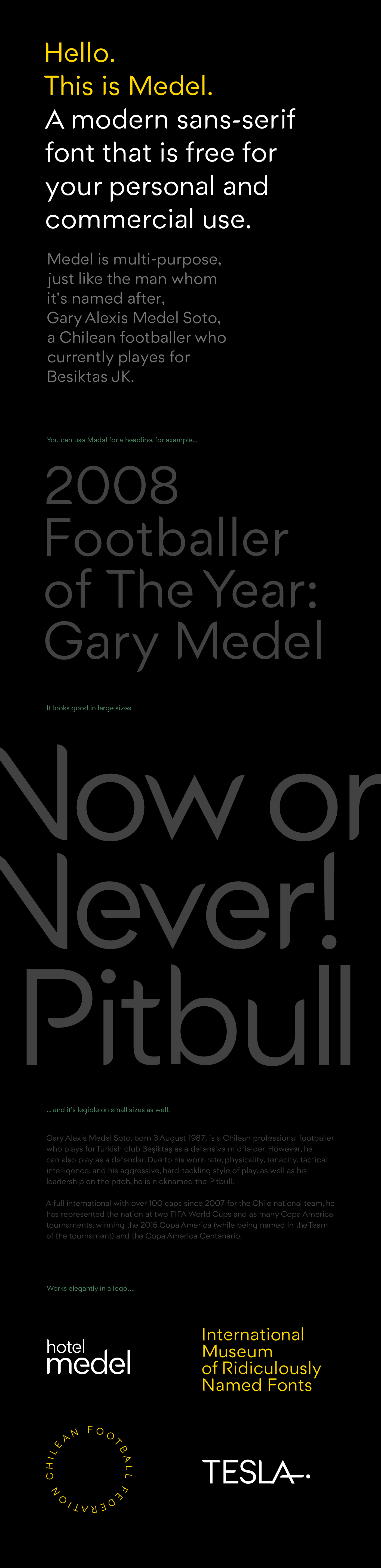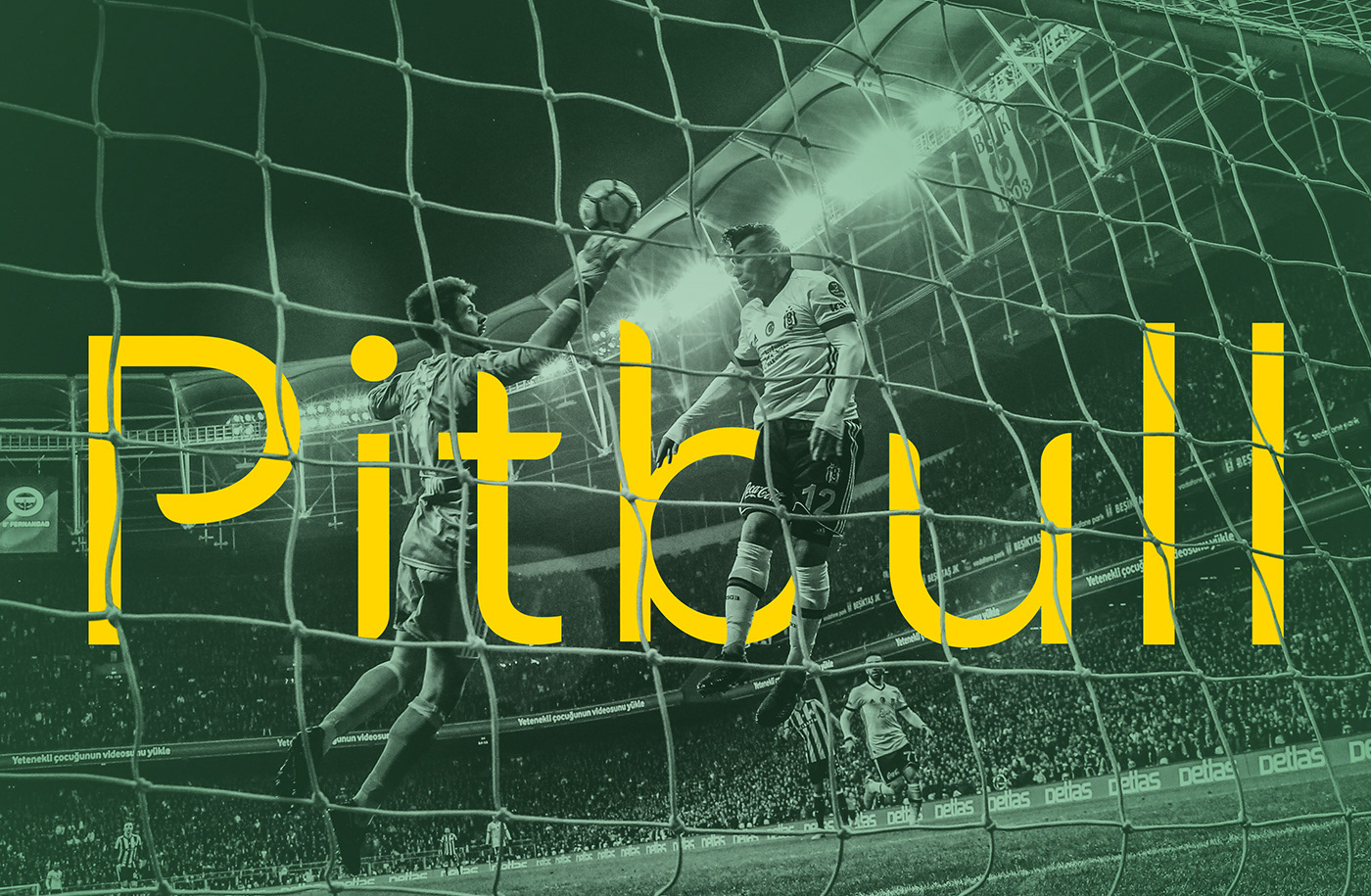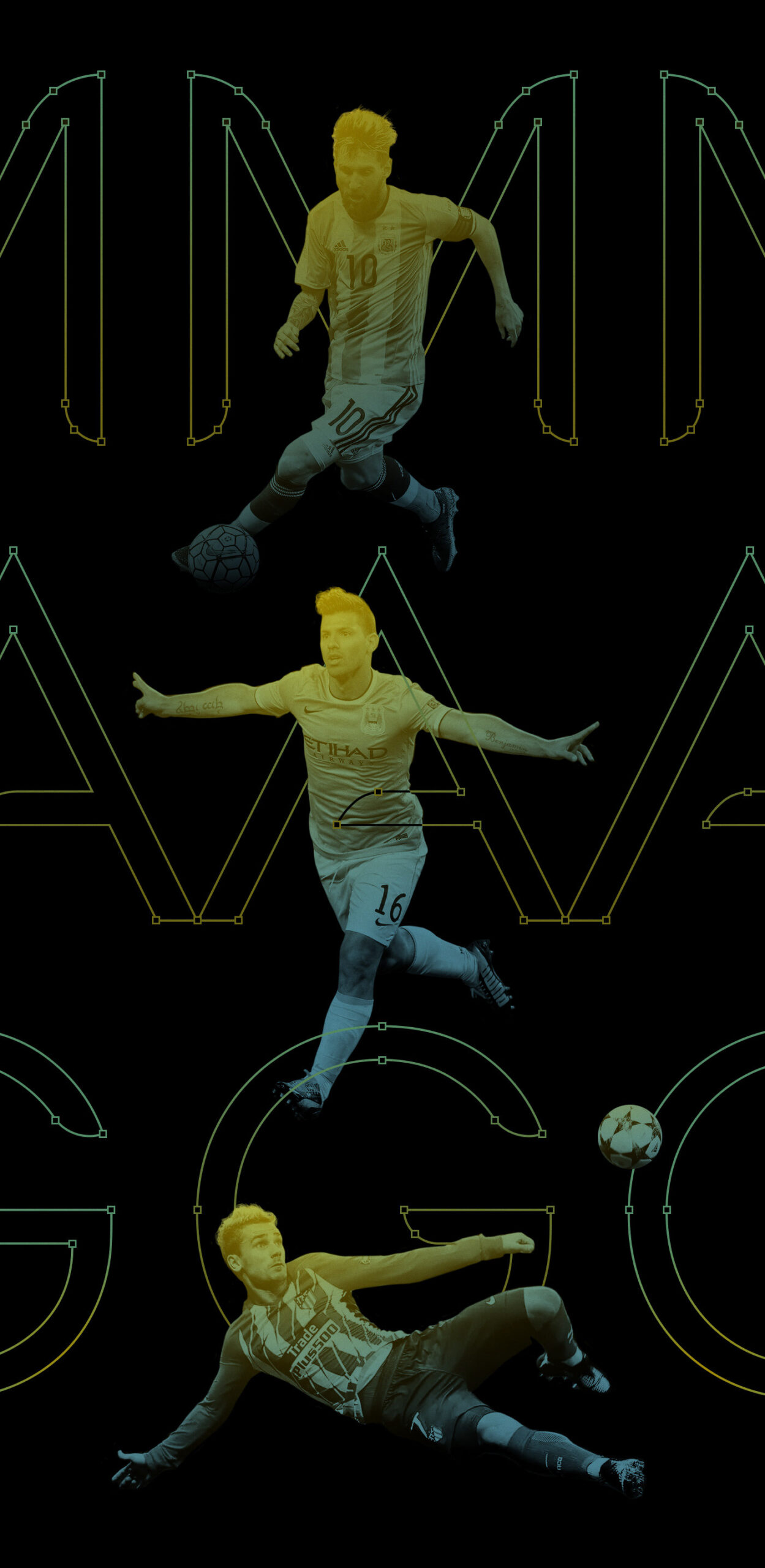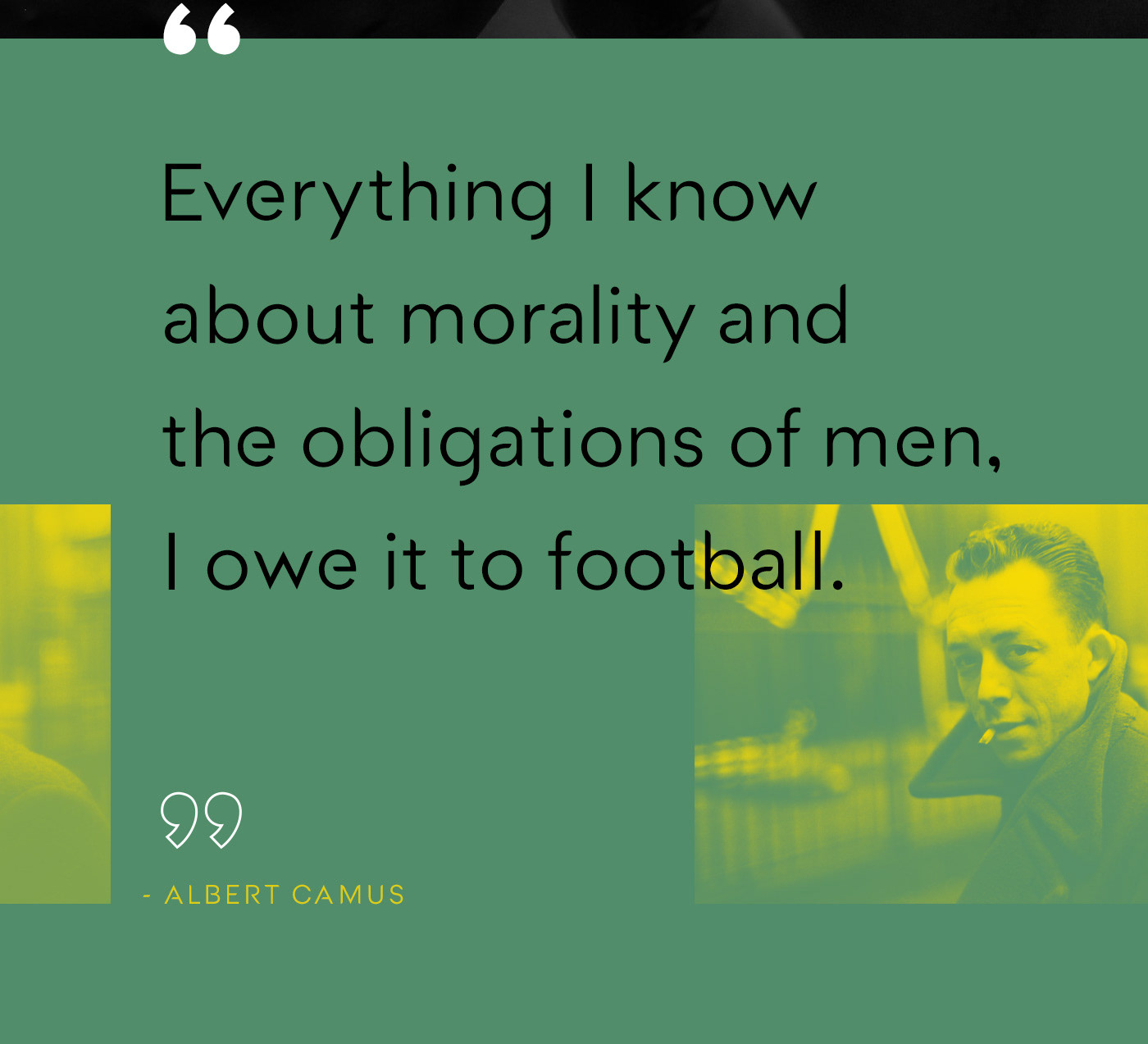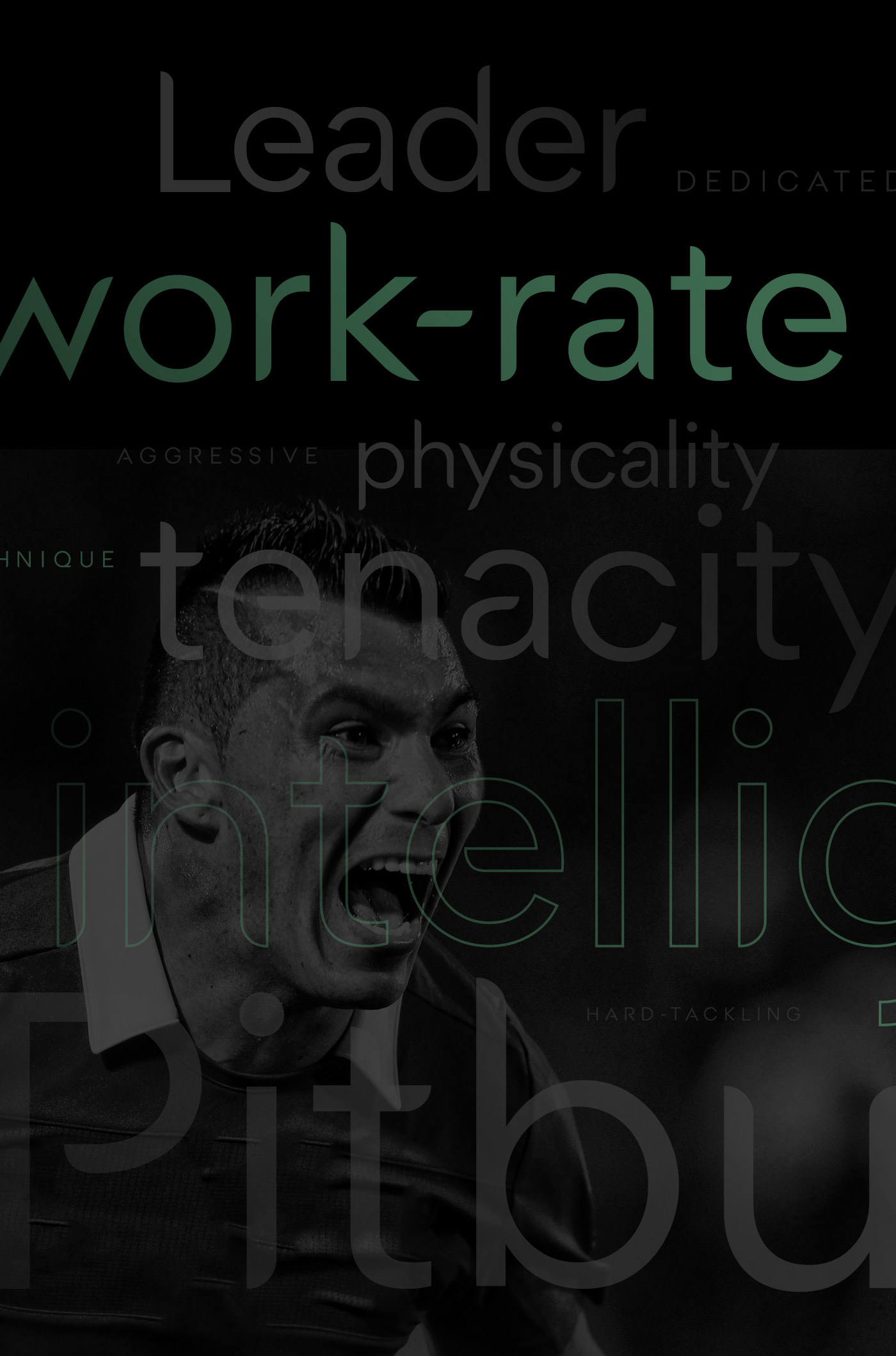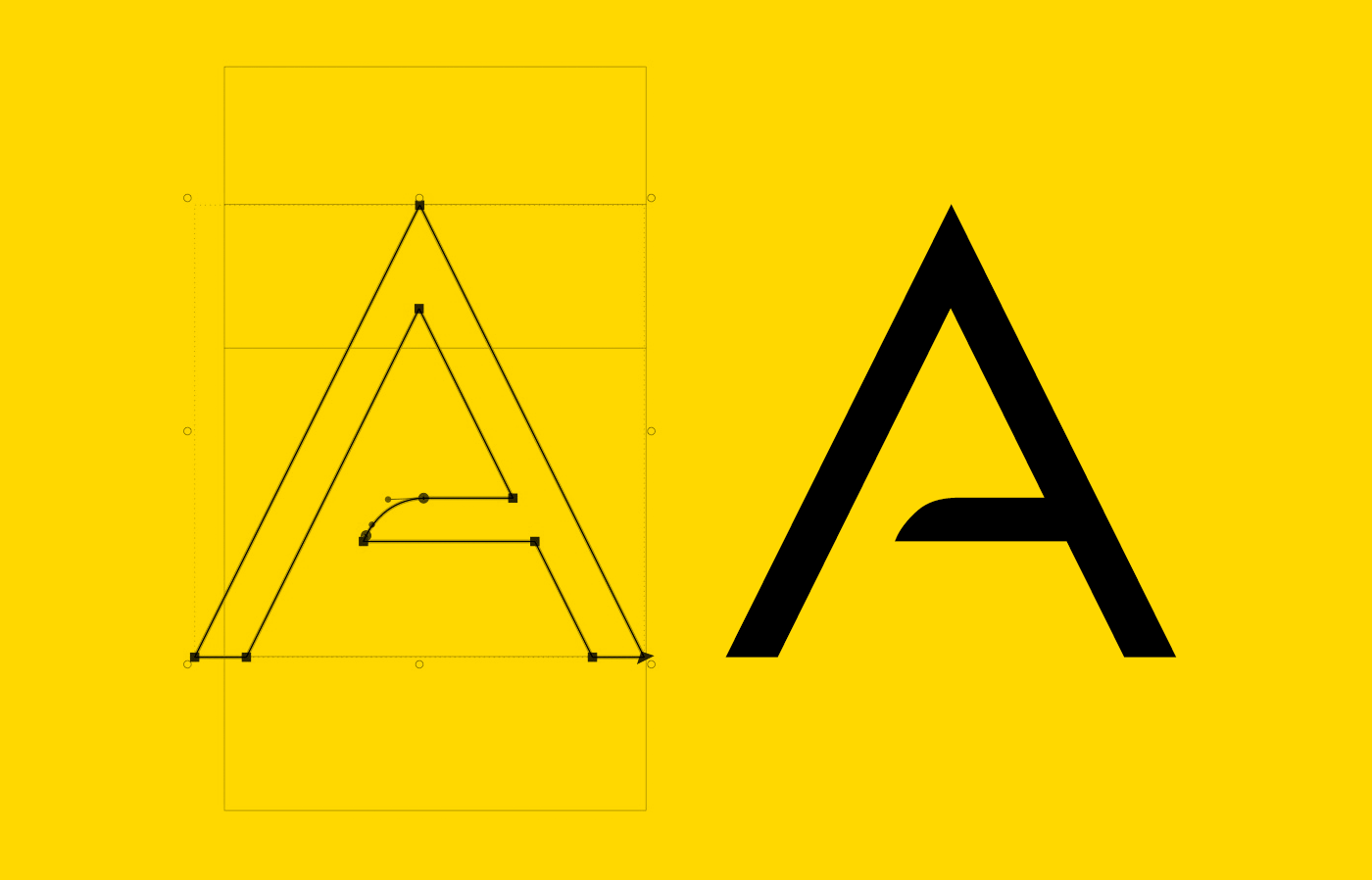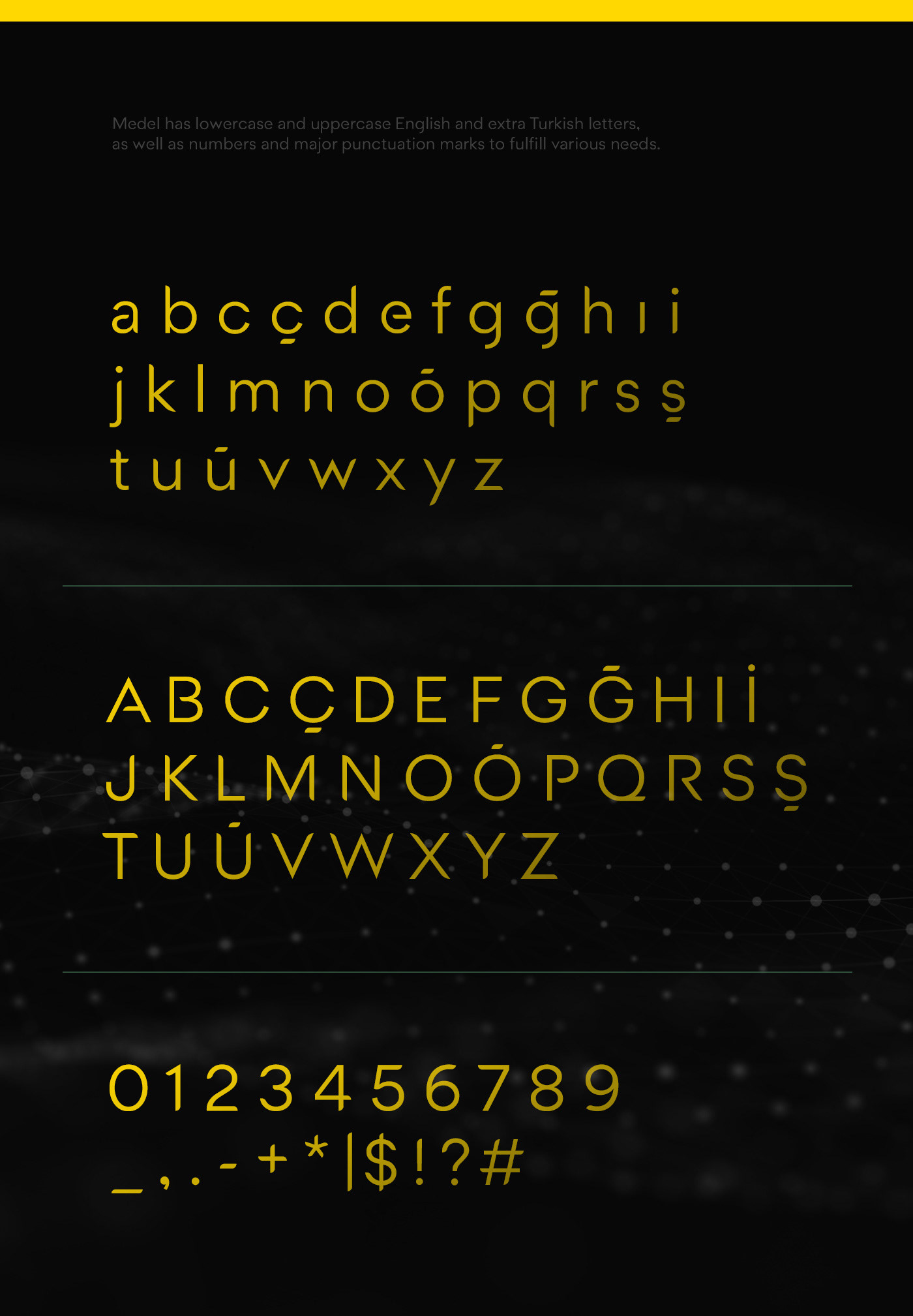
If you’re in need of a modern, sans-serif font, you’ve come to the right place. Medel was designed by Ozan Karakoc and it’s the perfect choice to use for projects centered around sports.